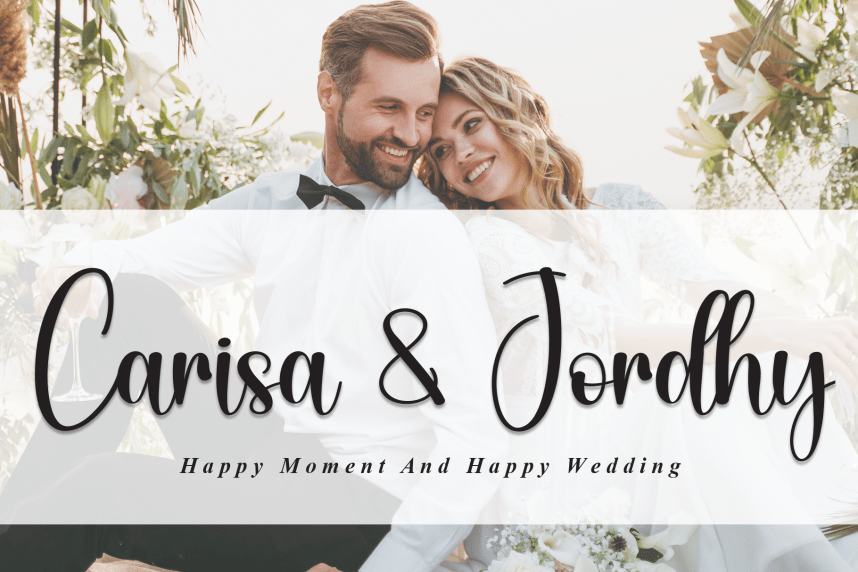
Book Christmas – Modern Handwritten Script Font
Book Christmas – Modern Handwritten Script Font, special creative products for you, our products will give you an extraordinary experience. the latest style letters are perfect for wall displays, wedding invitations, social media post logos, advertisements, product packaging, product designs, labels, photography, watermarks, invitations, stationery, and any project that requires taste handwriting.